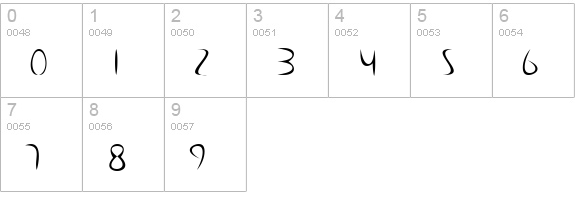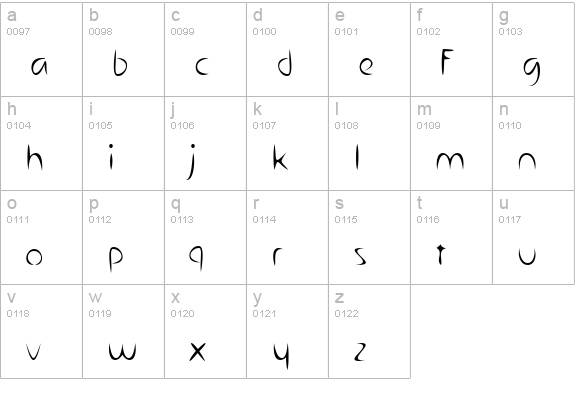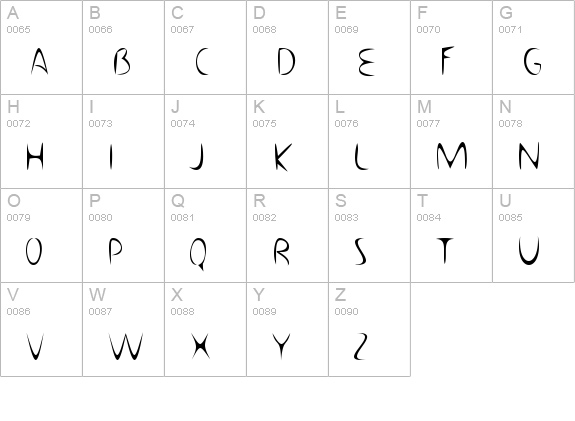
Minimalist Font Details
The Minimalist font exudes elegance and simplicity, making it the perfect choice for projects that require a sleek and modern aesthetic. With its clean lines and minimalistic design, this font is versatile and can be used for a variety of purposes, from branding to graphic design. The free Minimalist font is available for download at FontsMarket.com, allowing you to effortlessly elevate your creative projects with its timeless appeal. Add a touch of sophistication to your designs with the Minimalist font today.